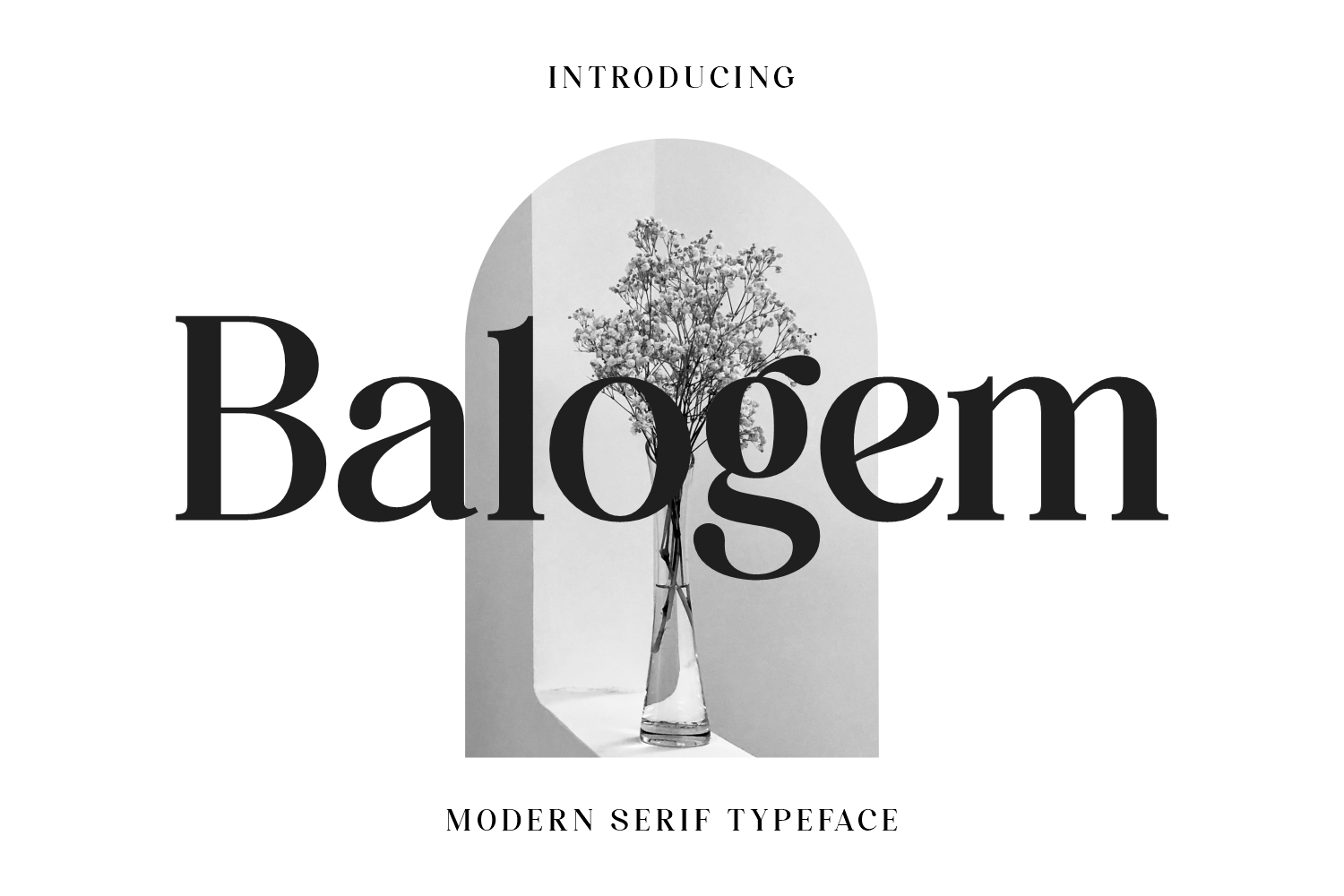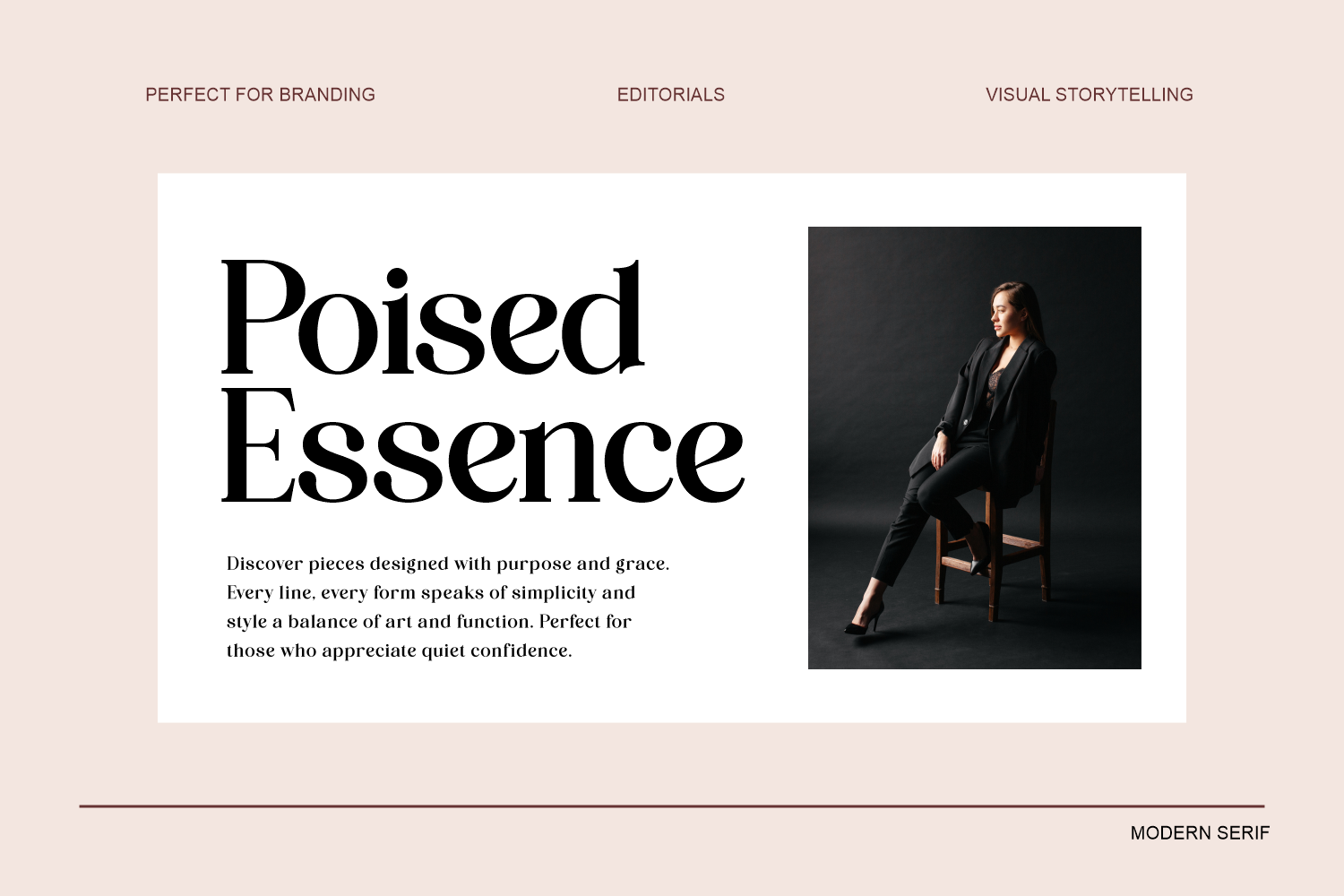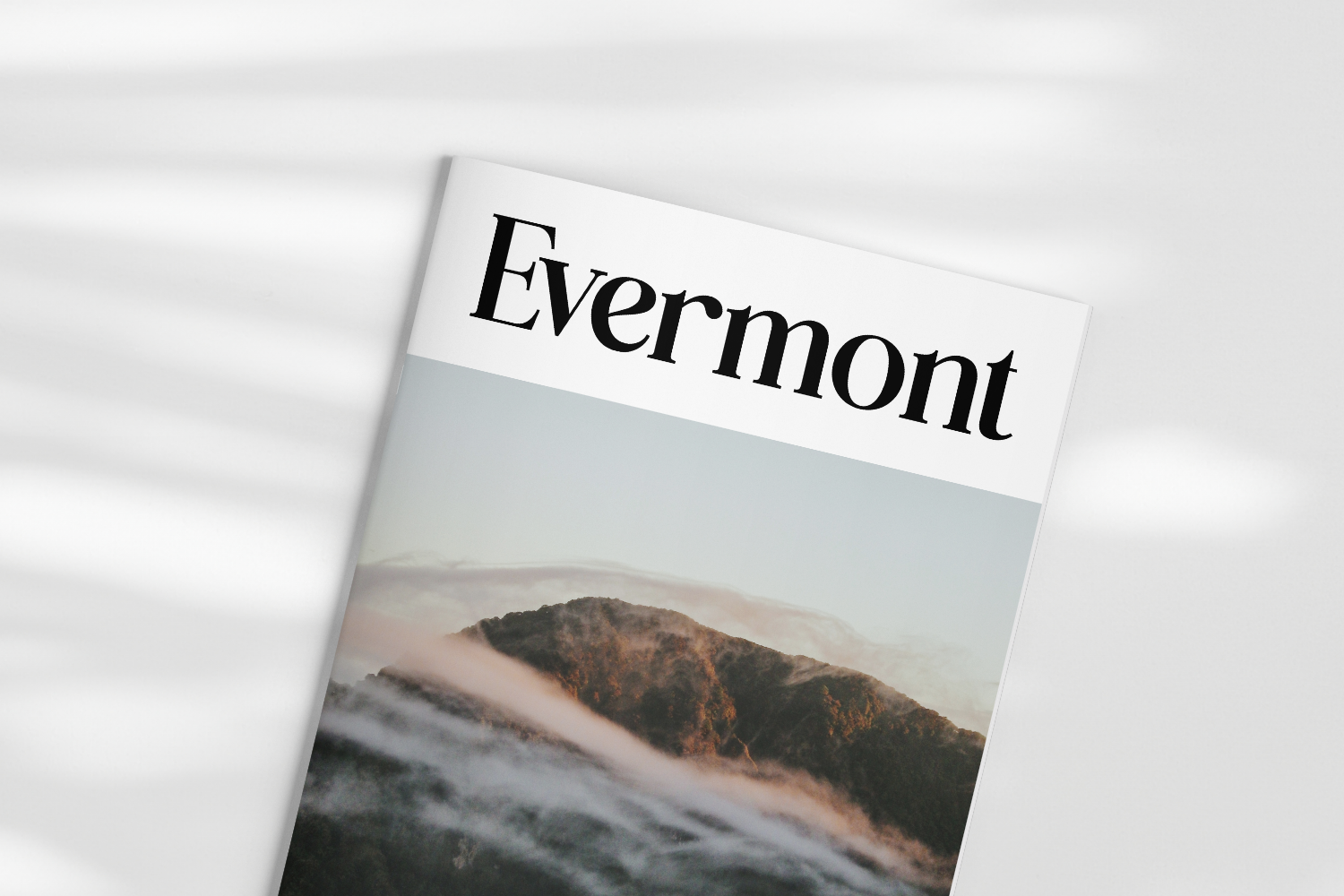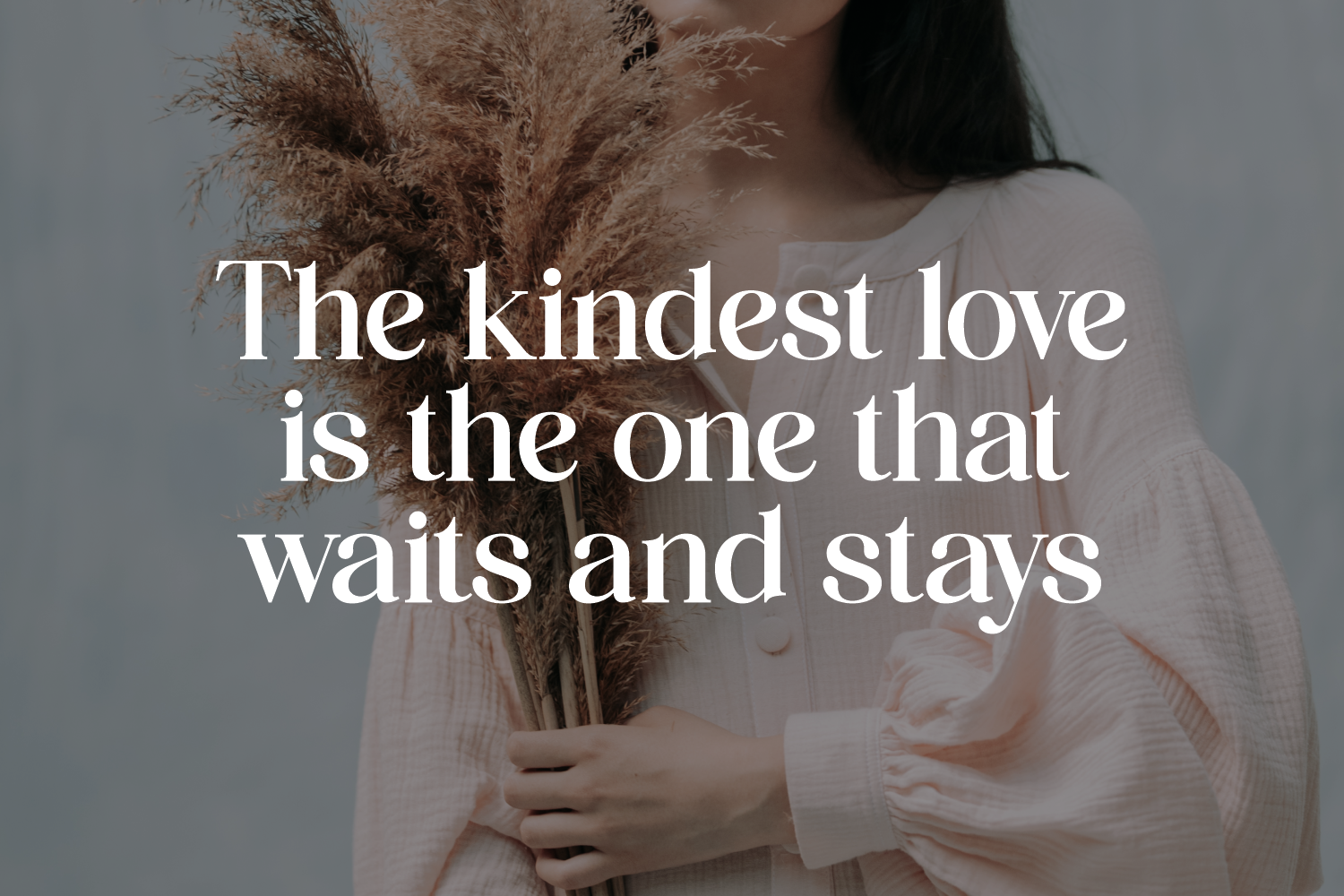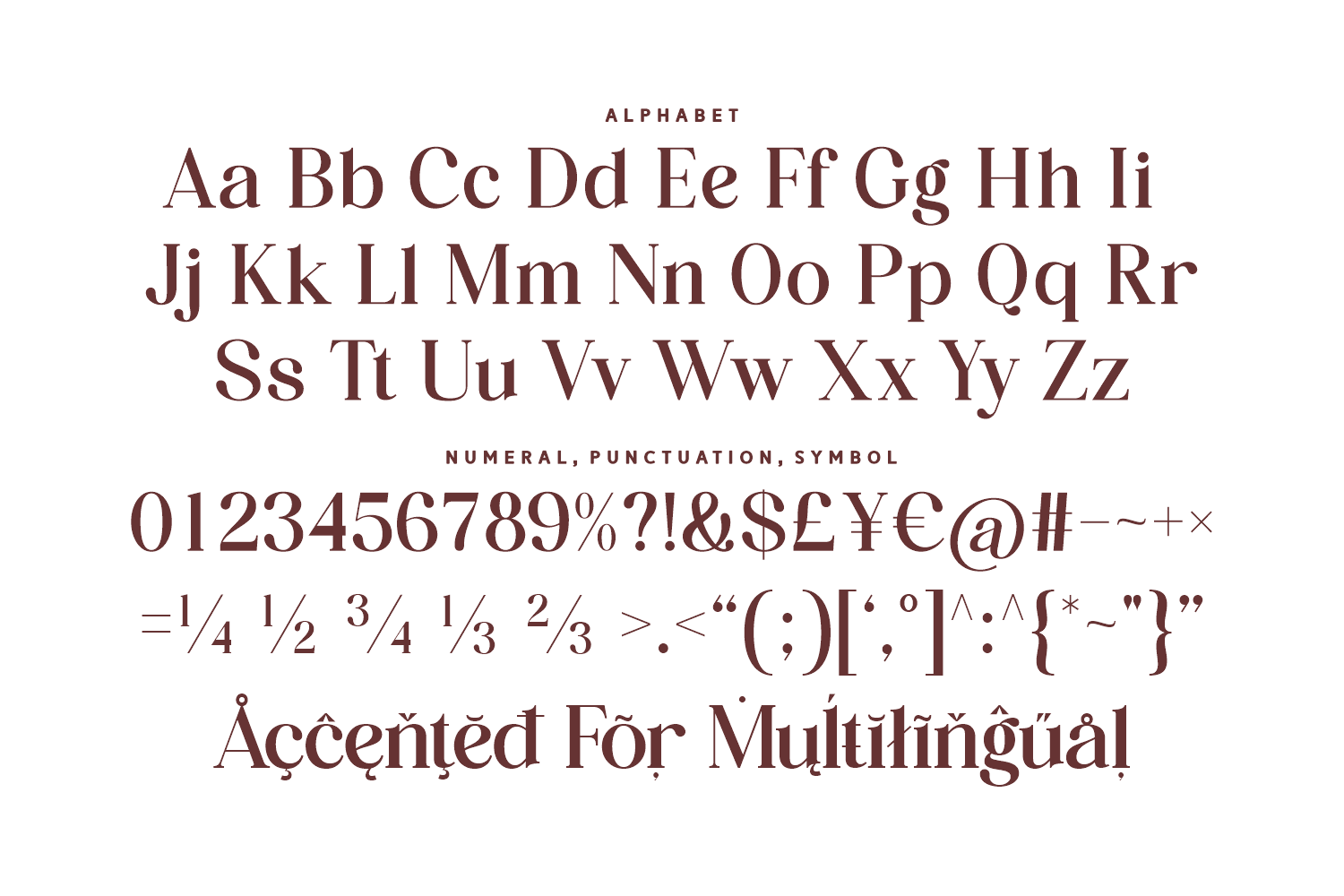
Balogem is a modern serif typeface that radiates elegance and clarity. With its strong contrast, smooth curves, and graceful serifs, Balogem is ideal for editorial layouts, sophisticated branding, luxury packaging, and minimalist logo designs. It strikes a perfect balance between timeless tradition and fresh contemporary appeal, making your designs feel both polished and distinctive.